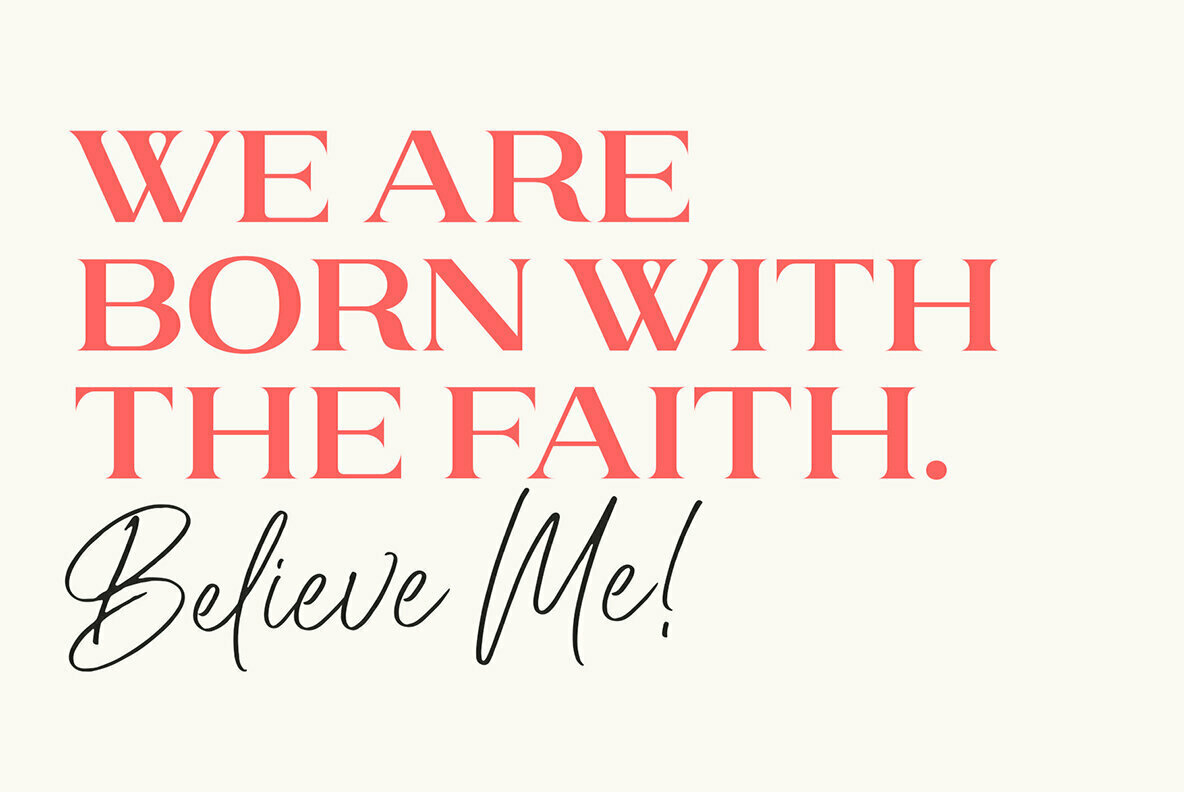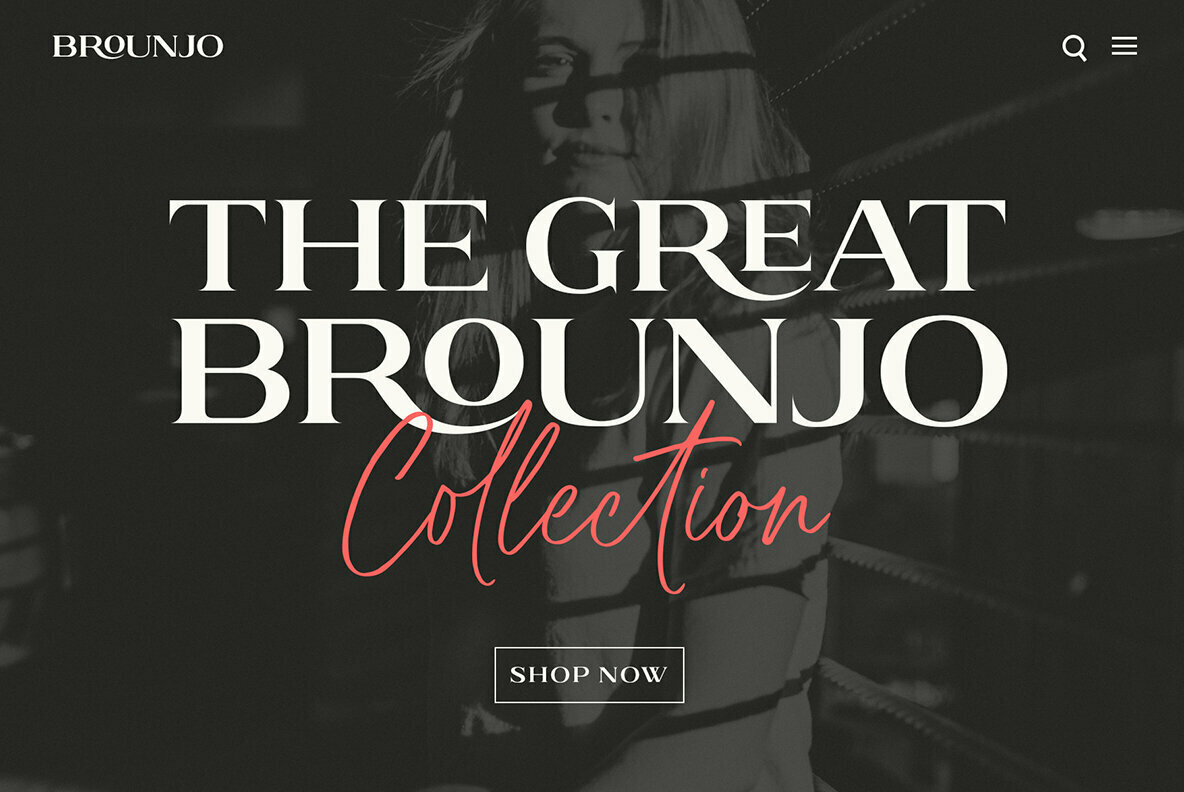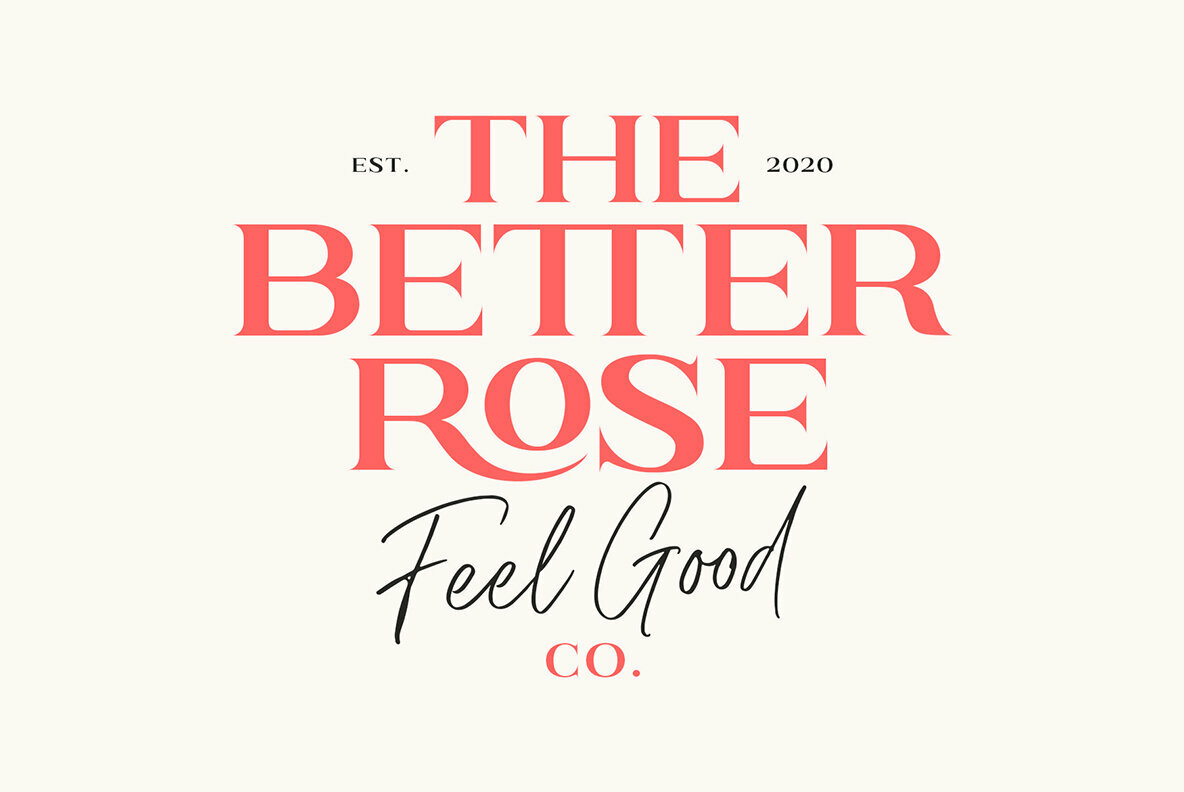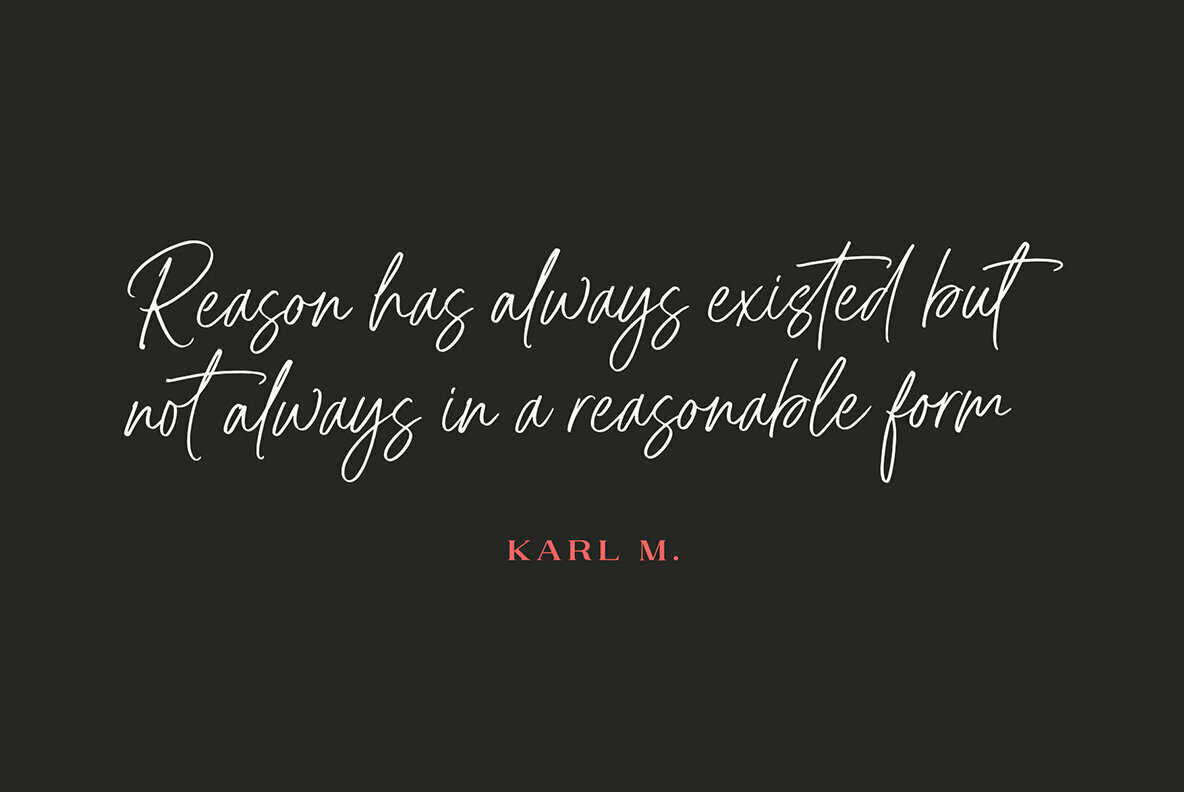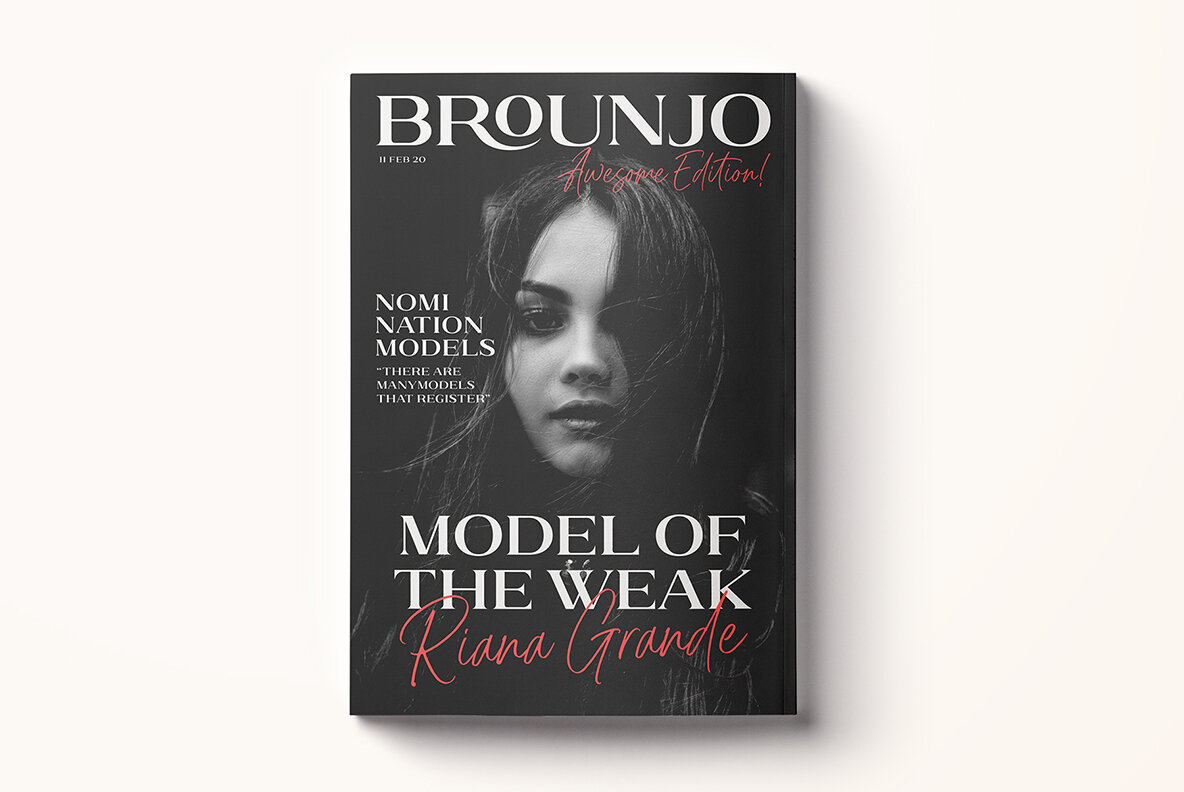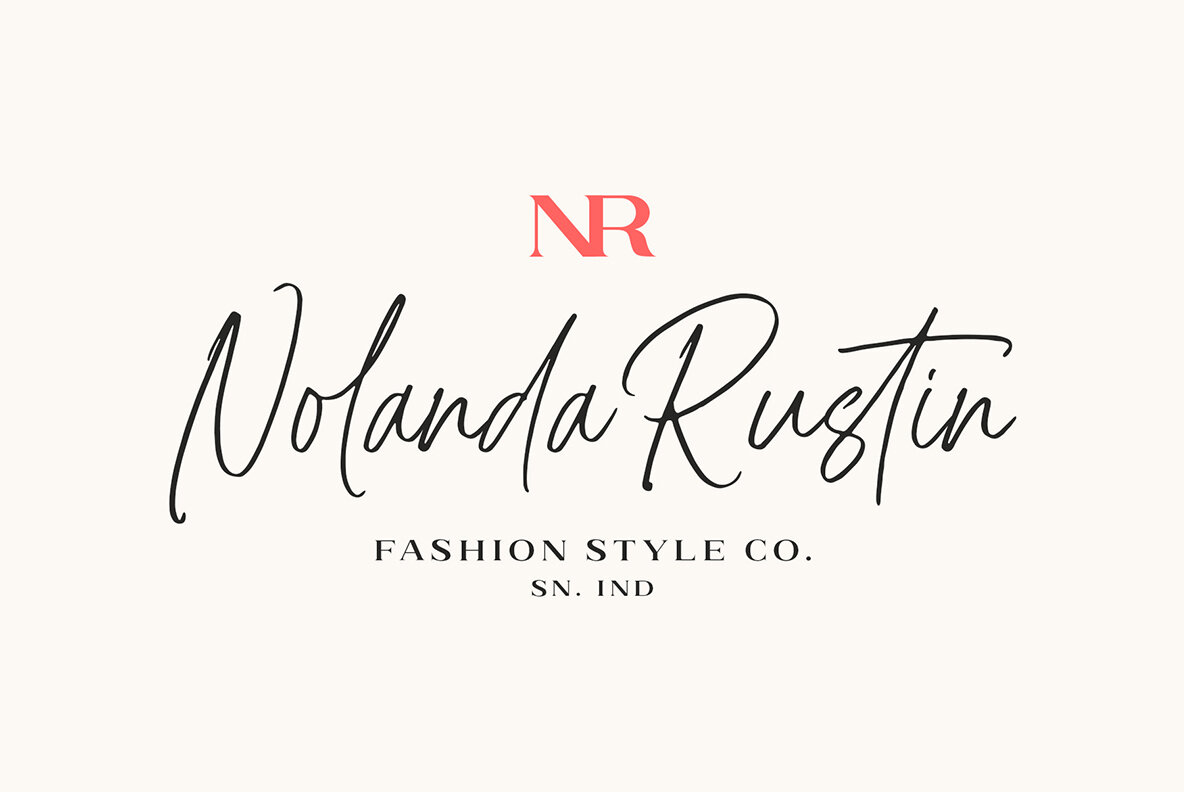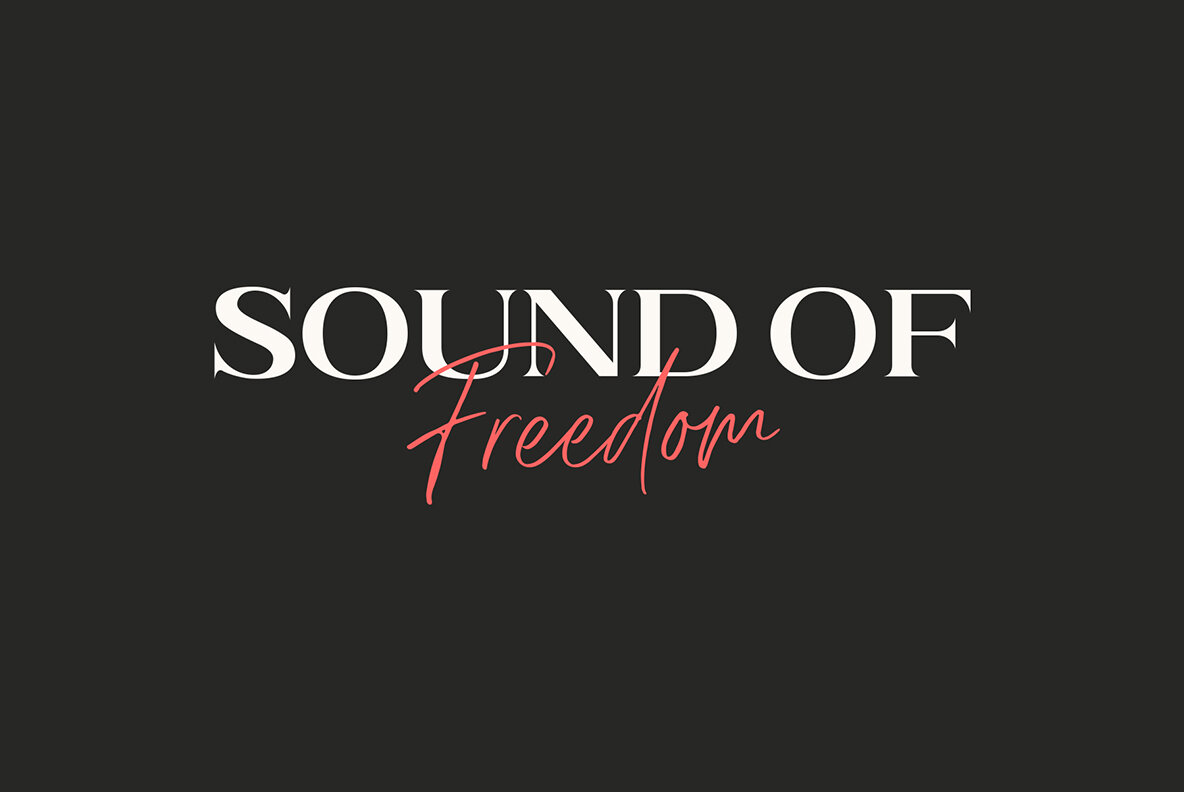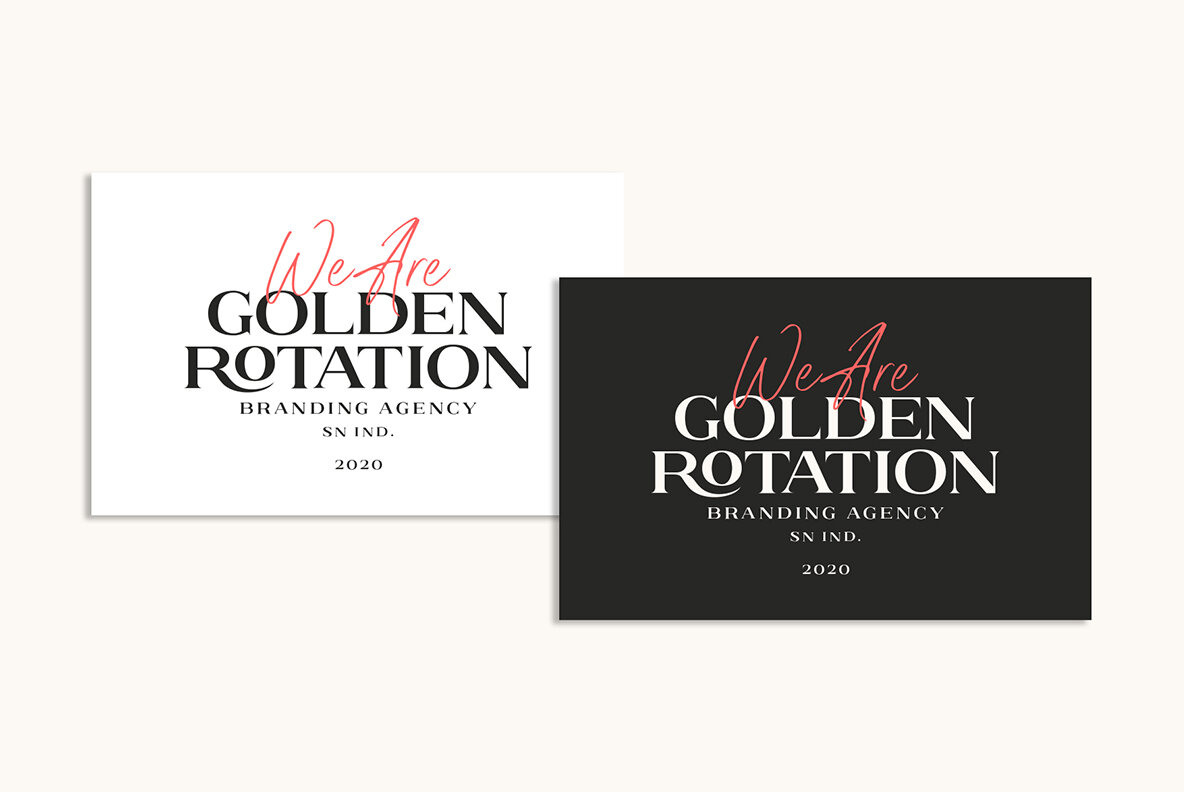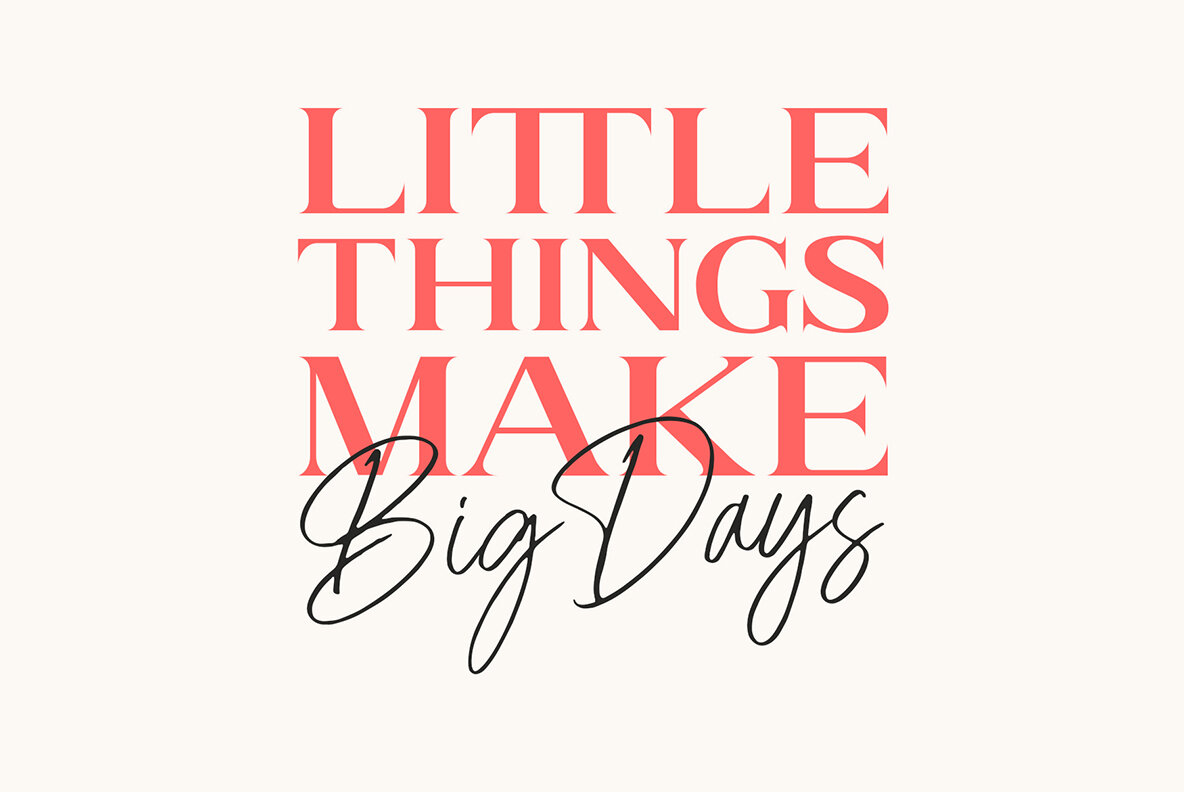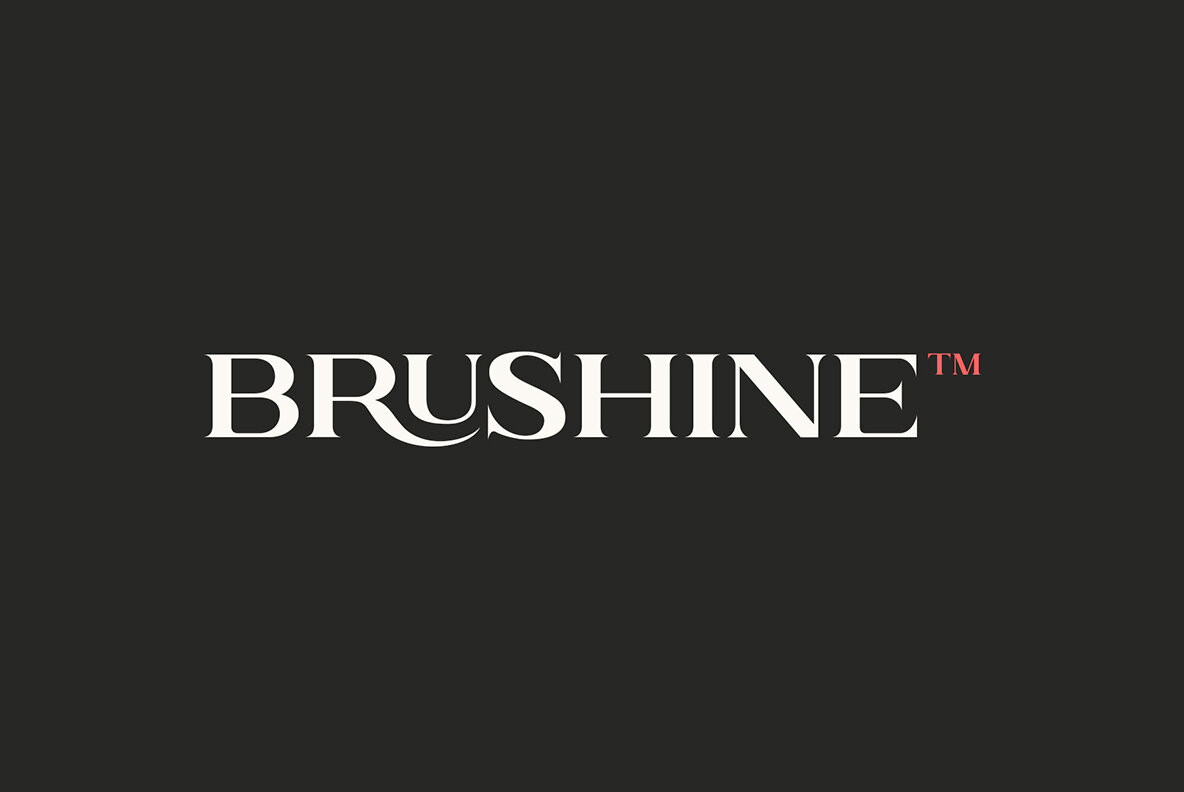
Brushine Collective Font
Brushine Collective Script
Brushine Collective Serif
Brushine Collective Serif Oblique
Explore the synergy of Brushine Collective, a sophisticated font pair combining a striking serif with a script that embodies natural artistry. The serif component boasts all-caps characters with pronounced contrast in thickness and sharp, defined edges, lending a touch of elegance and refinement to any project. Complementing this is the handwritten script, crafted with care using a marker, offering a fluid and genuine appearance.Brushine Collective: A Refined Font Duo